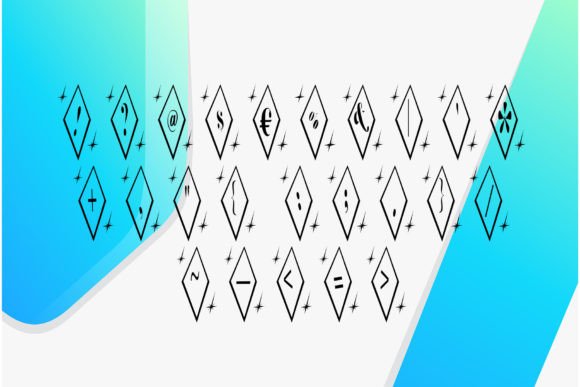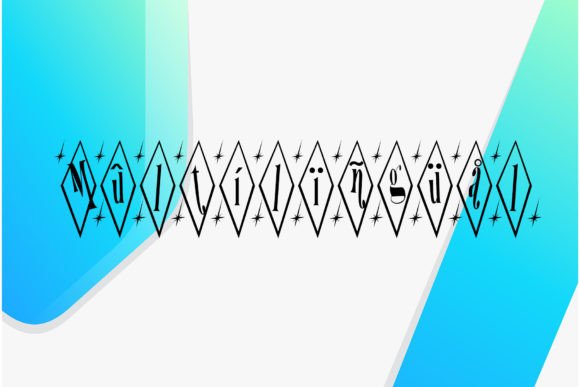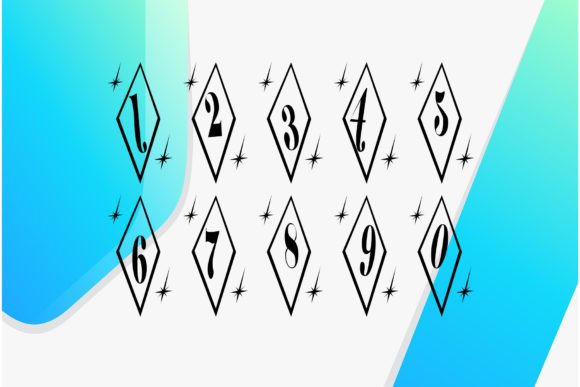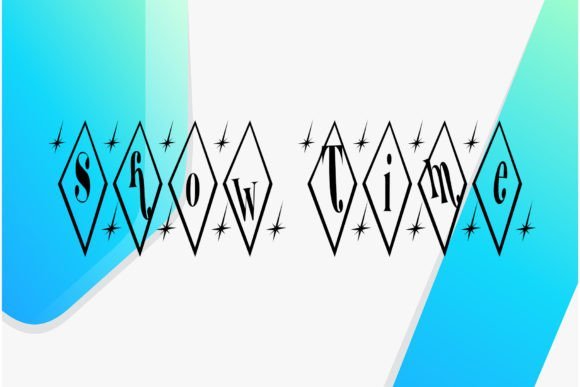
Introduction to Show Time Font
Show Time is a cool and unique display font.
With its whimsical and quirky flair, this font will brighten up each of your creative ideas .
Key Features of Show Time Font
Why Choose Show Time Font?
Show Time Font offers exceptional quality and versatility, making it a valuable addition to your design toolkit. Whether you’re creating for personal projects or commercial use, Show Time Font delivers professional results.